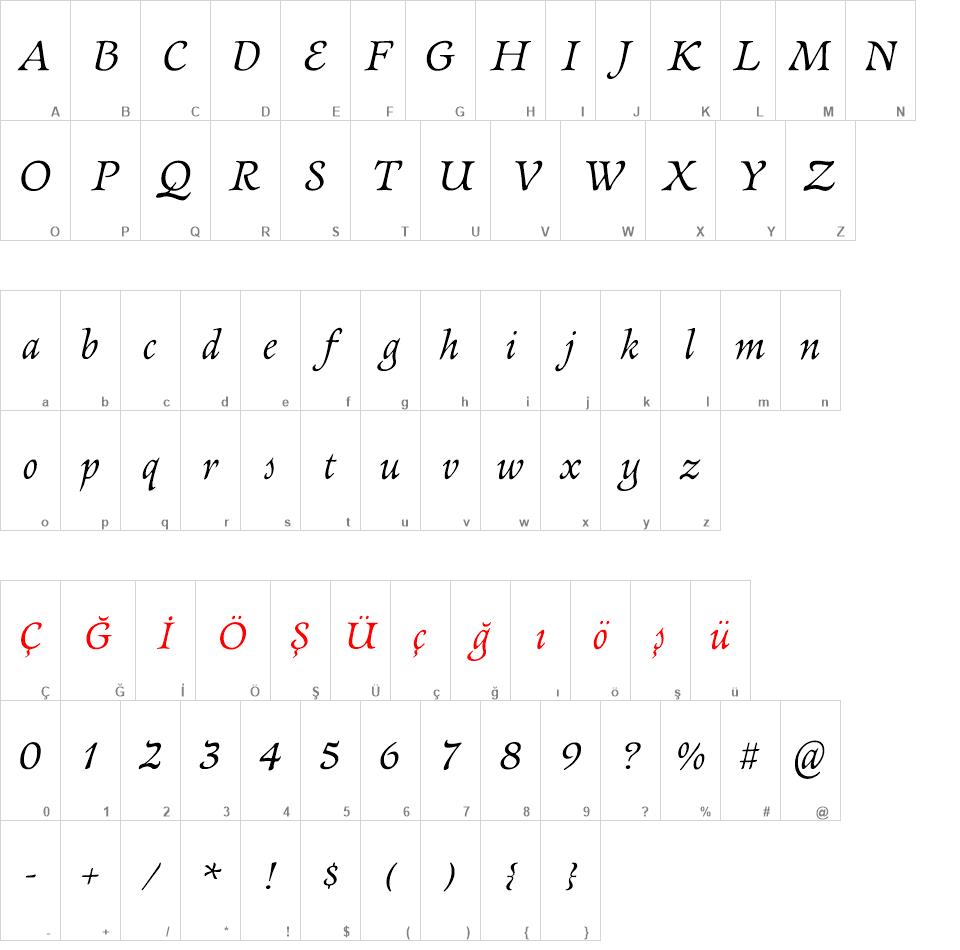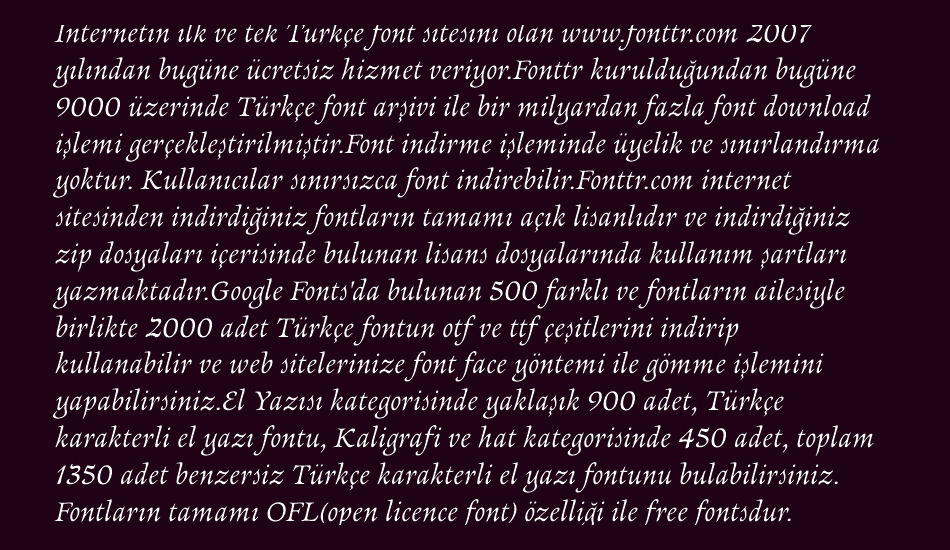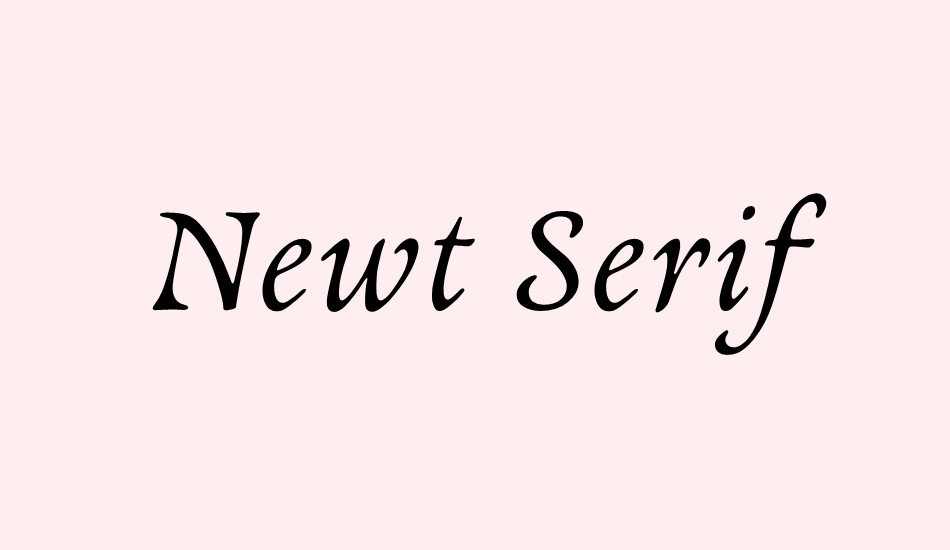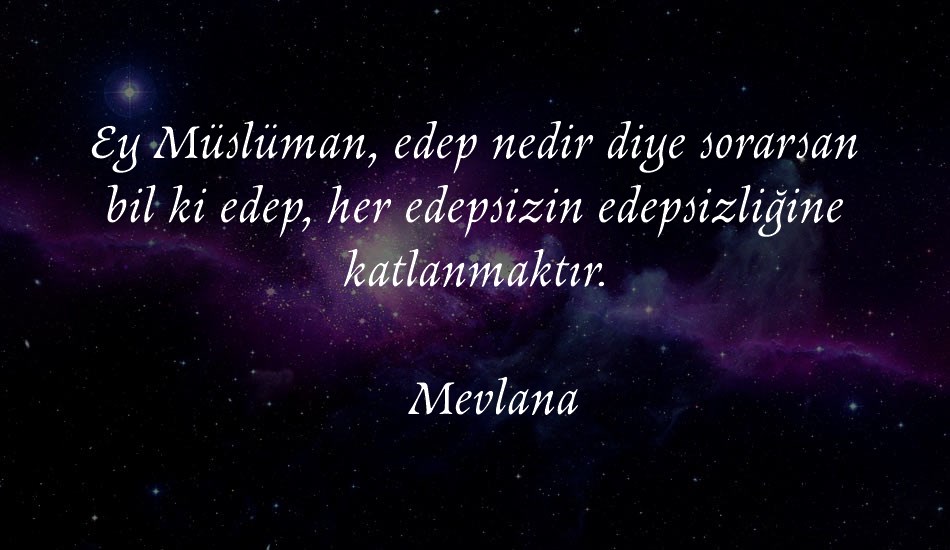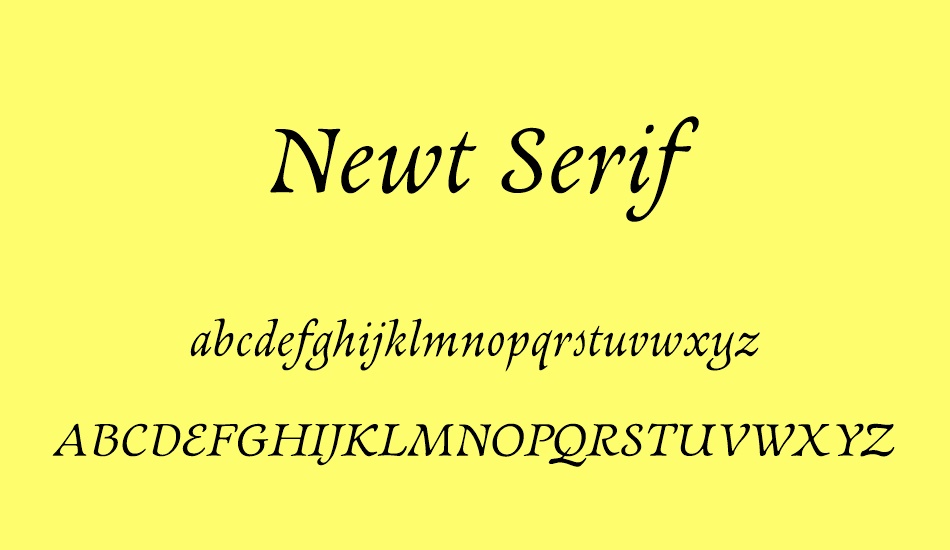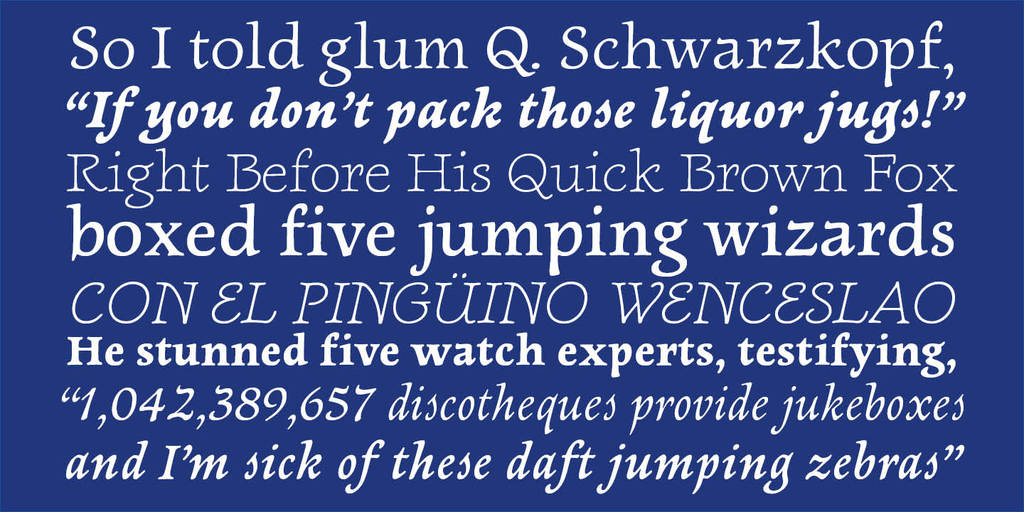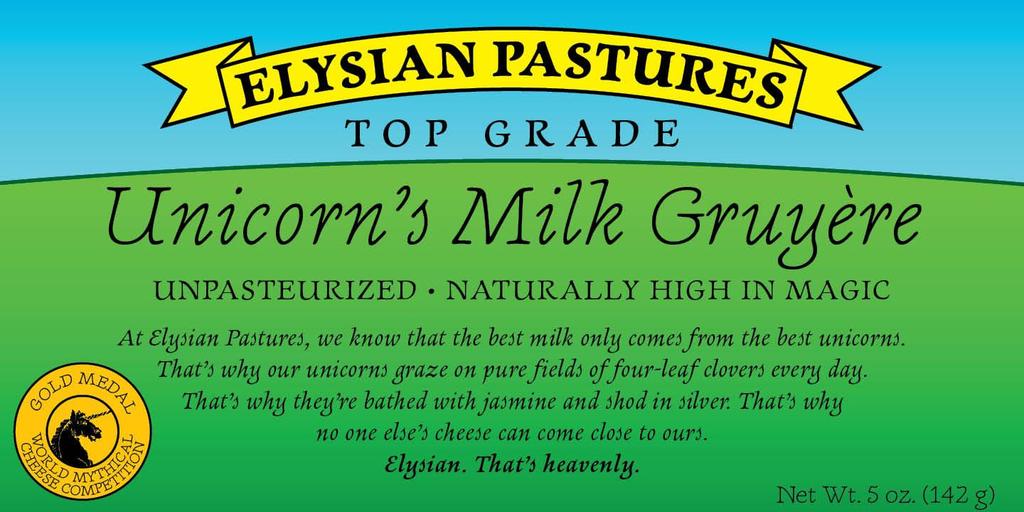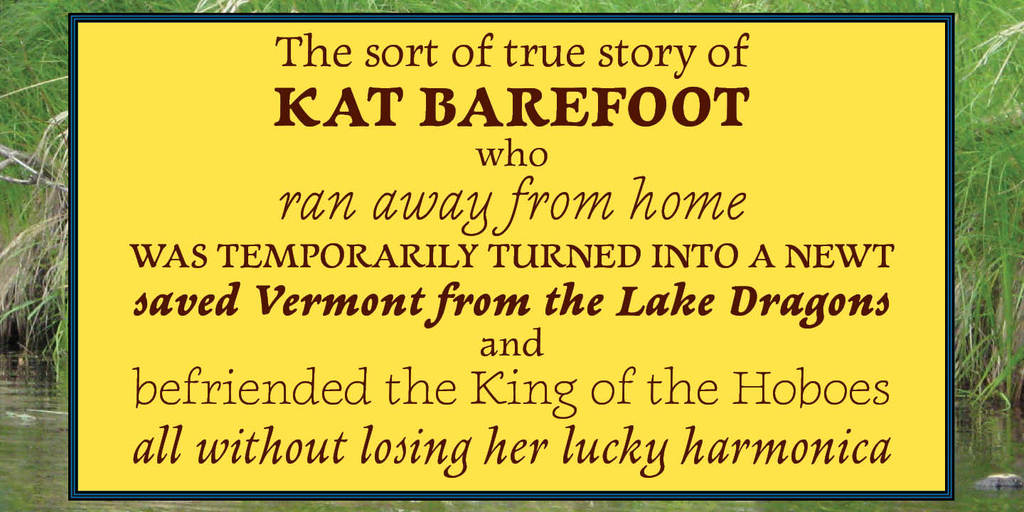
Newt Serif font
Newt Serif
Newt Serif is a soft, friendly serif font that has been described as appearing to have been “drawn by the light of mystic moons.” It did take many moons to finish (being my first finished font), so maybe some of them were mystic. Newta “typographically-minded” serif, comfortable enough for longer passages of text.